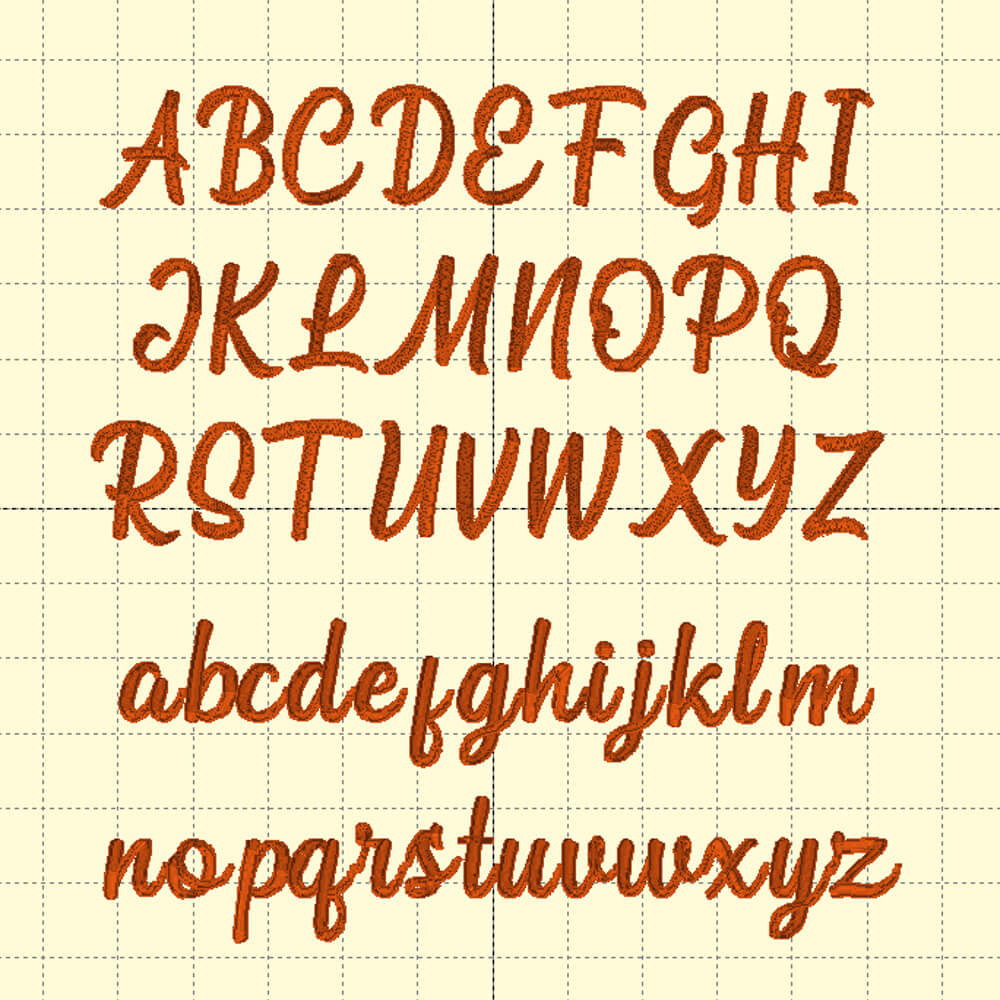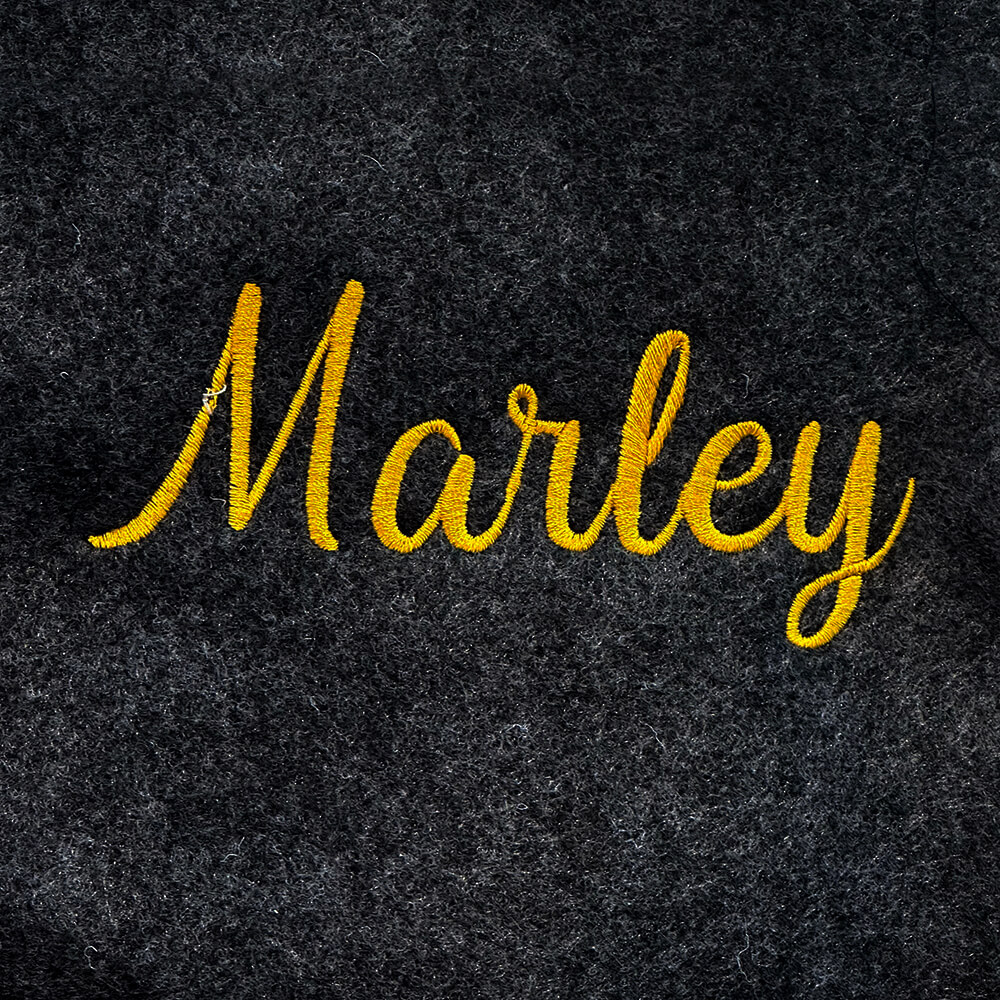
Marley Script Embroidery Font
Marley Script is a charming, casual BX embroidery font with playful curves and a handwritten feel that adds warmth to any design.
Marley Script Embroidery Font
All upper and lower case letters